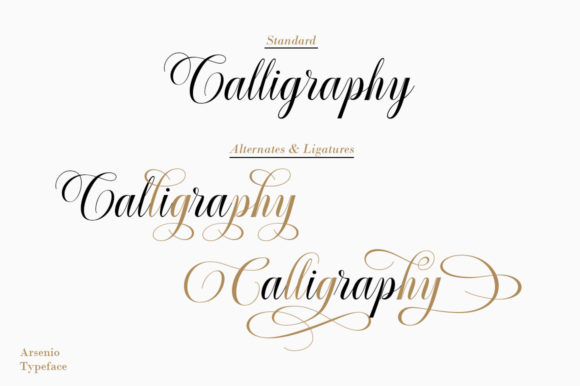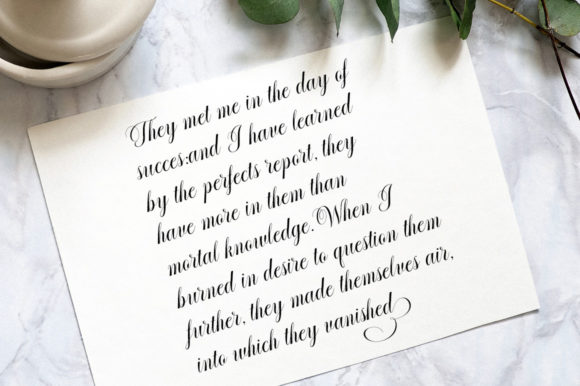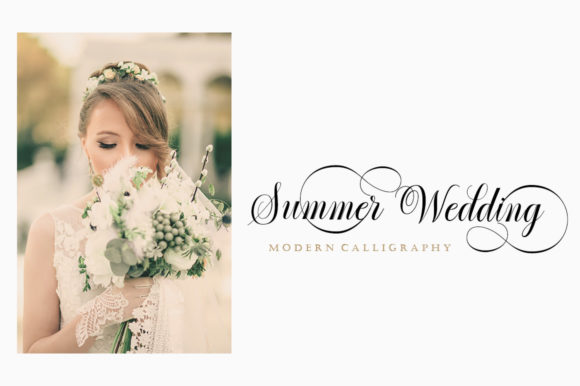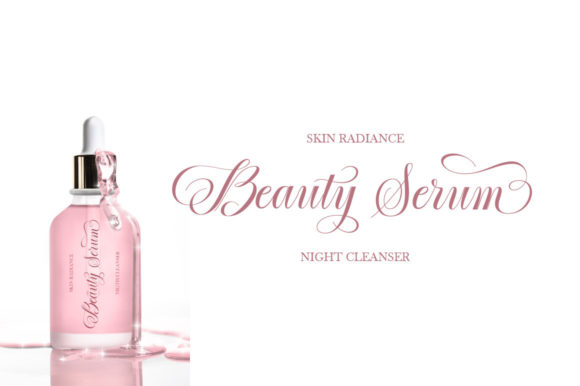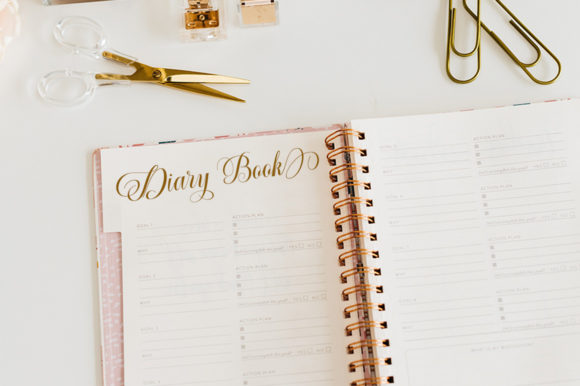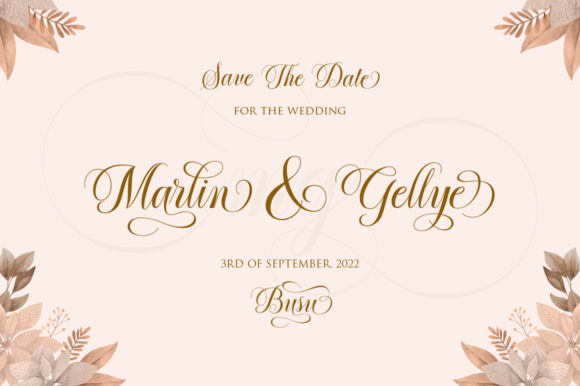
A Handwritten Touch That Stands Out
Have you ever been stuck on a design project, searching for that perfect font to give it a personal touch? Maybe you’ve been rummaging through your font library, trying to find the one that screams elegance and charm. If so, you’re not alone. We’ve all been there, and it’s frustrating. But what if I told you that there’s a font that can make your designs stand out and capture the essence of handwritten beauty?
Enter the Arsenio Script Font, a stunning, elegant, and charming font that’s perfect for adding a handwritten touch to your designs. Whether it’s a wedding invitation, a thank you card, or a logo, this font is sure to make your designs look stunning. With its PUA encoding, accessing all the glyphs and swashes is a breeze, making it a valuable asset for designers who crave perfection.
Arsenio Script Font Key Features
- Font Family: Arsenio Script
- Unique Characteristics: This script font features elegant, flowing connections between letters, making it ideal for invitations, posters, and other creative designs
Arsenio Script Font Review
Overall, I think Arsenio Script Font is a beautiful script font that can add a touch of elegance to any design project. ✨ Its flowing lines and organic feel make it perfect for invitations, wedding designs, and other special occasions.
- ✨ Unique and elegant feel: Arsenio Script Font has a distinct personality that sets it apart from other script fonts.
- ✨ Wide range of applications: This font can be used for various design projects, from invitations and wedding designs to product labels and marketing materials.
- ✨ High-quality font files: The font files are well-optimized and easy to use, making it a breeze to work with.
- ⚠️ Limited font weights: Arsenio Script Font only comes in a single weight, which may limit its versatility in certain design projects.
- ⚠️ Not suitable for body text: Due to its script nature, this font may not be the best choice for large blocks of body text, as it can be difficult to read.
While Arsenio Script Font may have some limitations, its unique beauty and wide range of applications make it a great addition to any designer’s toolkit. I would definitely recommend it for special occasion designs and projects where a touch of elegance is needed.
The Arsenio Script Font is ideal for creating elegant and sophisticated designs. It’s commonly used for:
- Brand logos and typography.
- Editorial and publishing designs.
Remember to pair the Arsenio Script Font with a clean and simple design to let the font take center stage.
Alternatives to Arsenio Script Font
Playfair Display is a high-end script font with elegant and luxurious feel. It’s ideal for creating a sophisticated and high-end look for luxury brands, fashion, and beauty products. It’s more formal and elegant compared to Arsenio Script Font, making it suitable for wedding invitations, luxury packaging, and high-end advertising.
Carolyna Pro is a modern script font with a mix of elegance and playfulness. It’s perfect for creating a unique and eye-catching design for fashion, beauty, and lifestyle brands. Compared to Arsenio Script Font, Carolyna Pro has a more modern feel and is ideal for social media graphics, blog posts, and online advertising.
Great Vibes is a beautiful script font with a relaxed and casual feel. It’s ideal for creating a friendly and approachable design for food, travel, and lifestyle brands. Compared to Arsenio Script Font, Great Vibes has a more casual and laid-back feel, making it suitable for restaurant menus, travel brochures, and social media posts.
Alex Brush is a elegant and sophisticated script font with a mix of modern and vintage feel. It’s perfect for creating a unique and eye-catching design for branding, packaging, and advertising. Compared to Arsenio Script Font, Alex Brush has a more elegant and sophisticated feel, making it suitable for high-end brands, luxury products, and creative projects.
Q: Does Arsenio Script Font support ligatures and contextual alternates?
Yes, Arsenio Script Font supports ligatures and contextual alternates, which can enhance the overall appearance and readability of your designs. These features can be accessed in your design software by enabling the corresponding font features or using a font editor like FontForge.